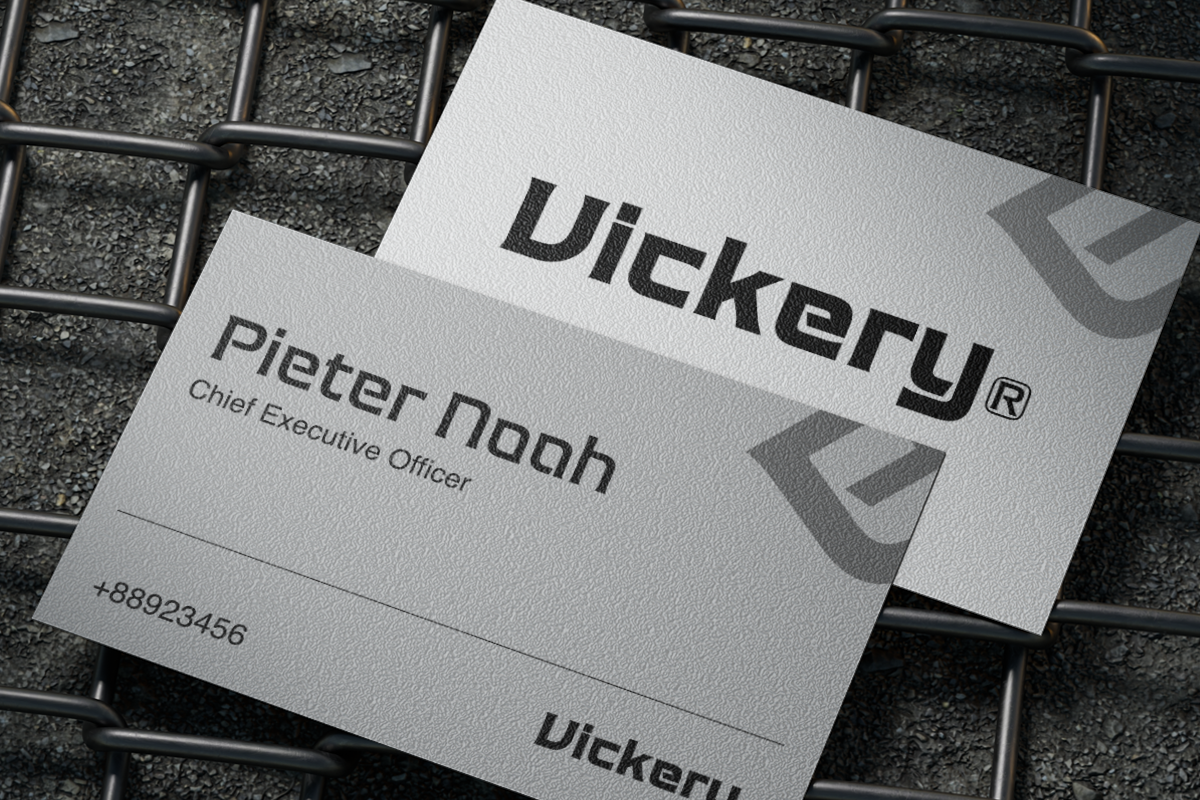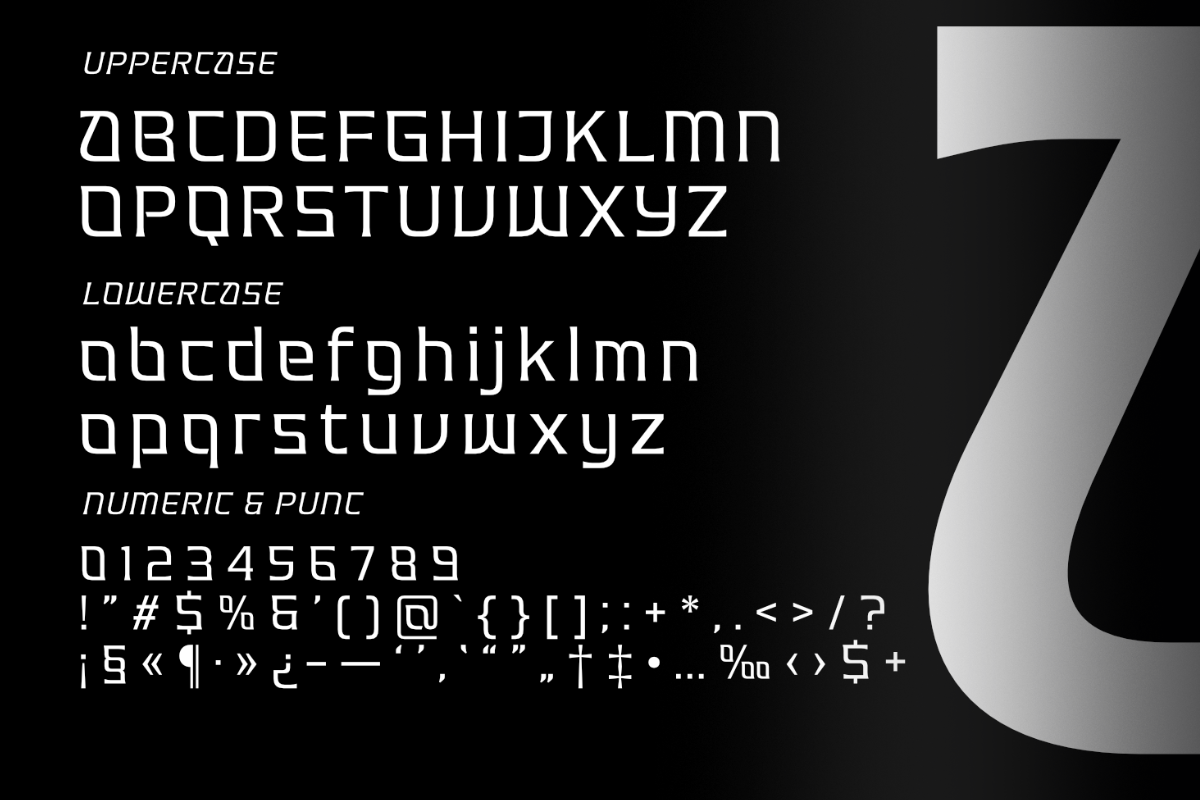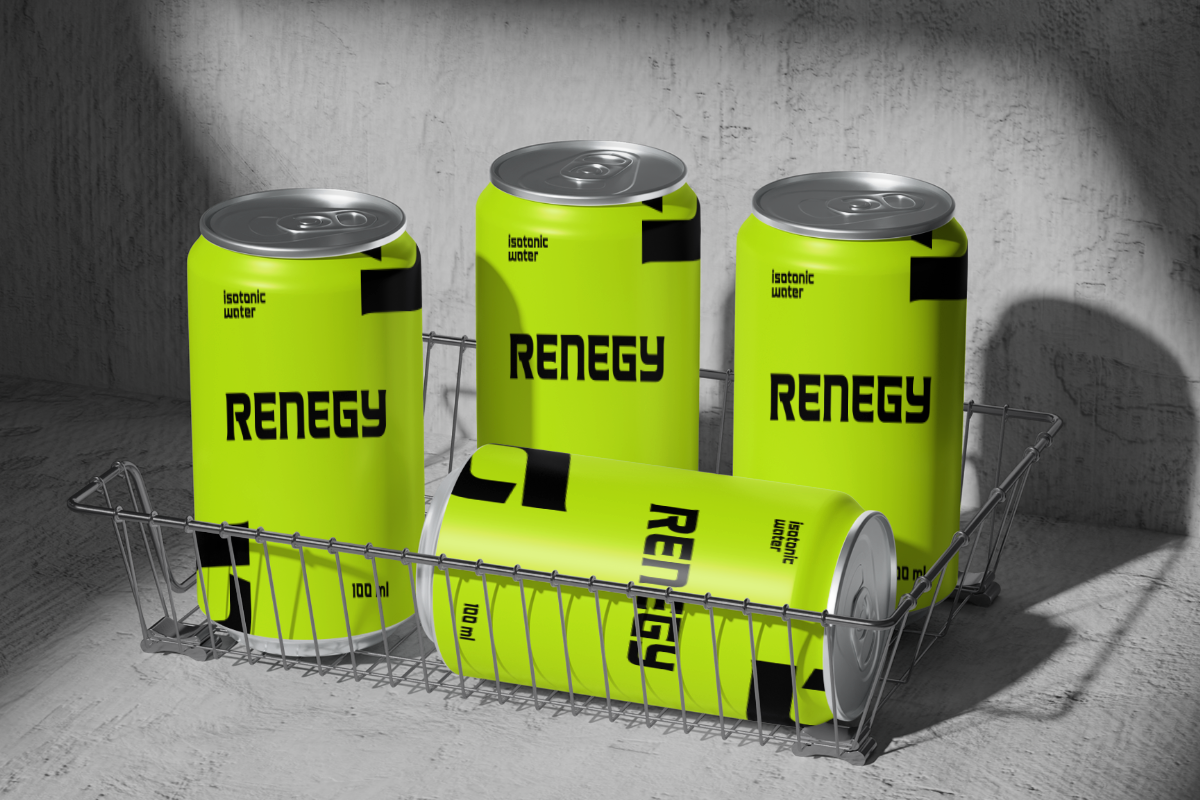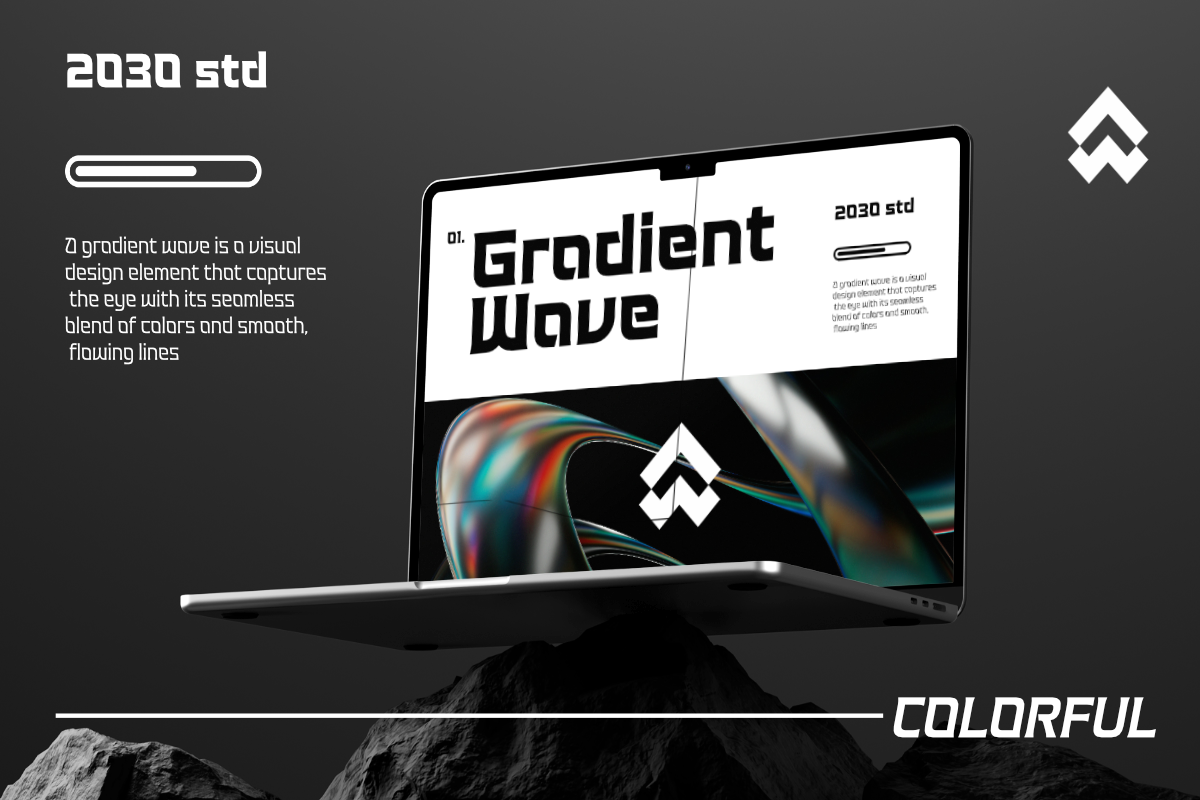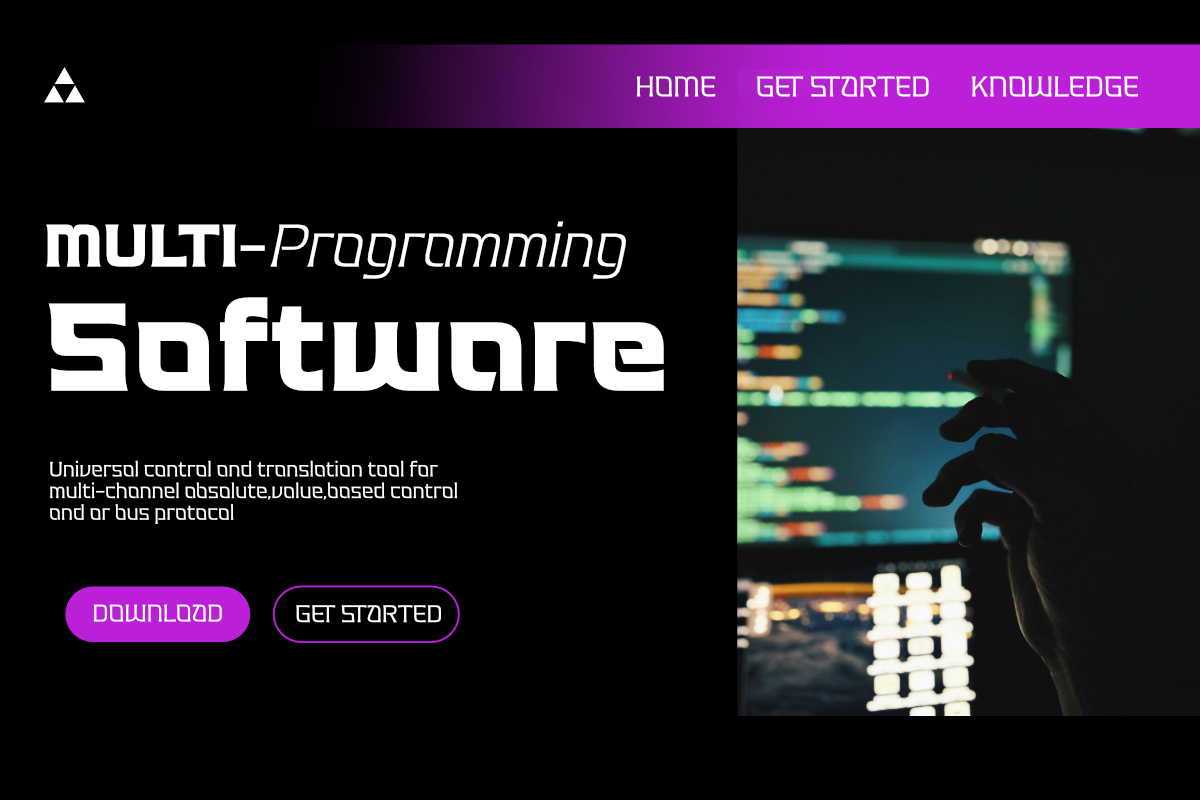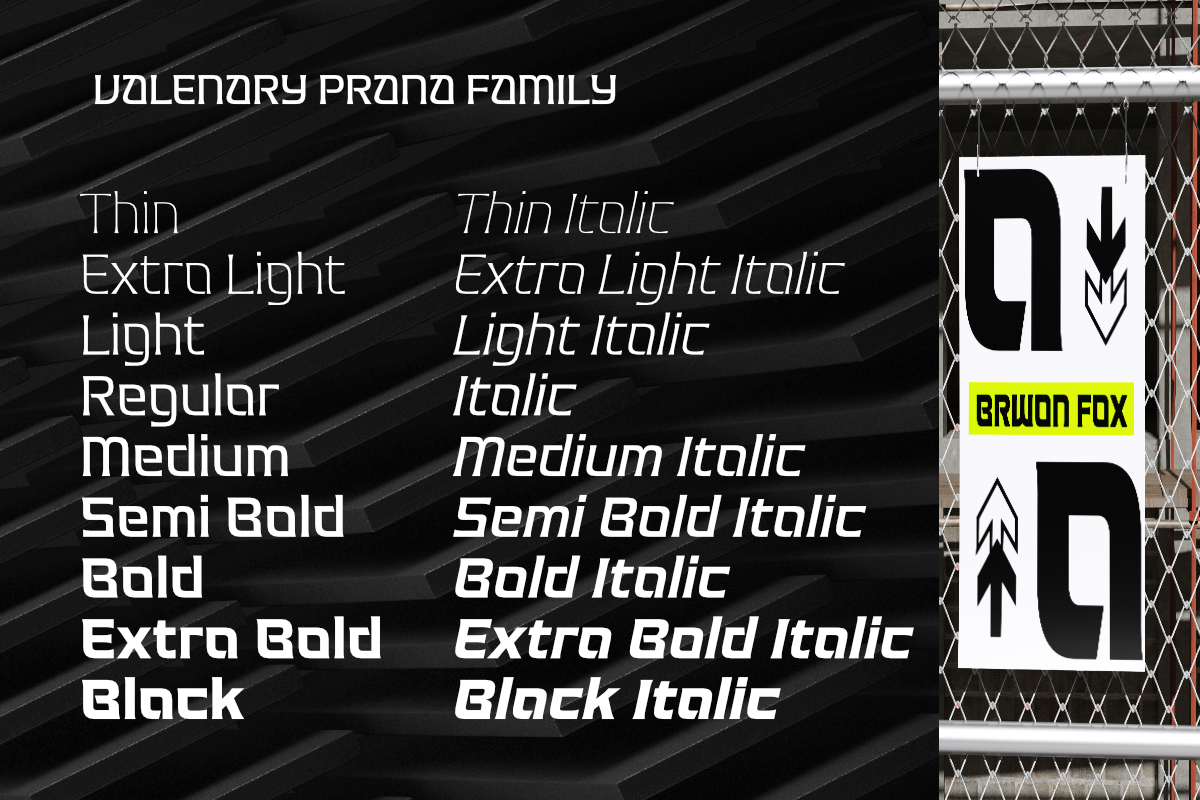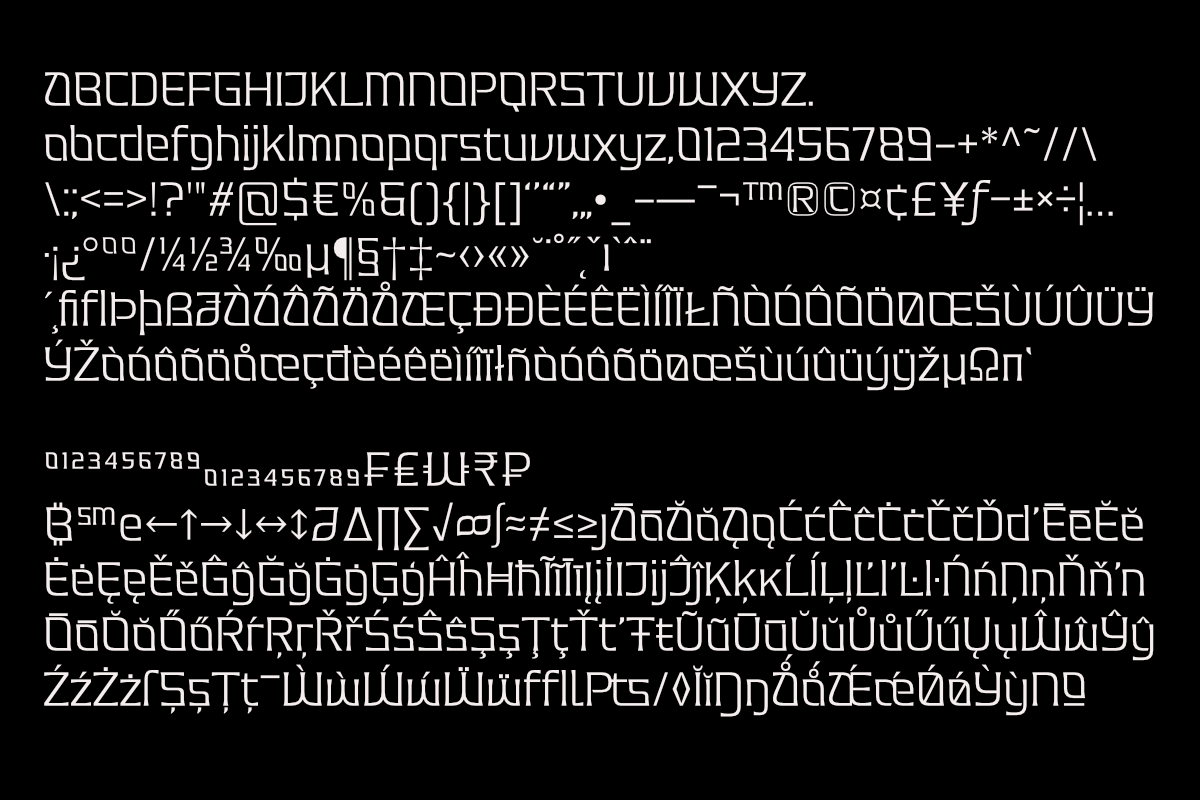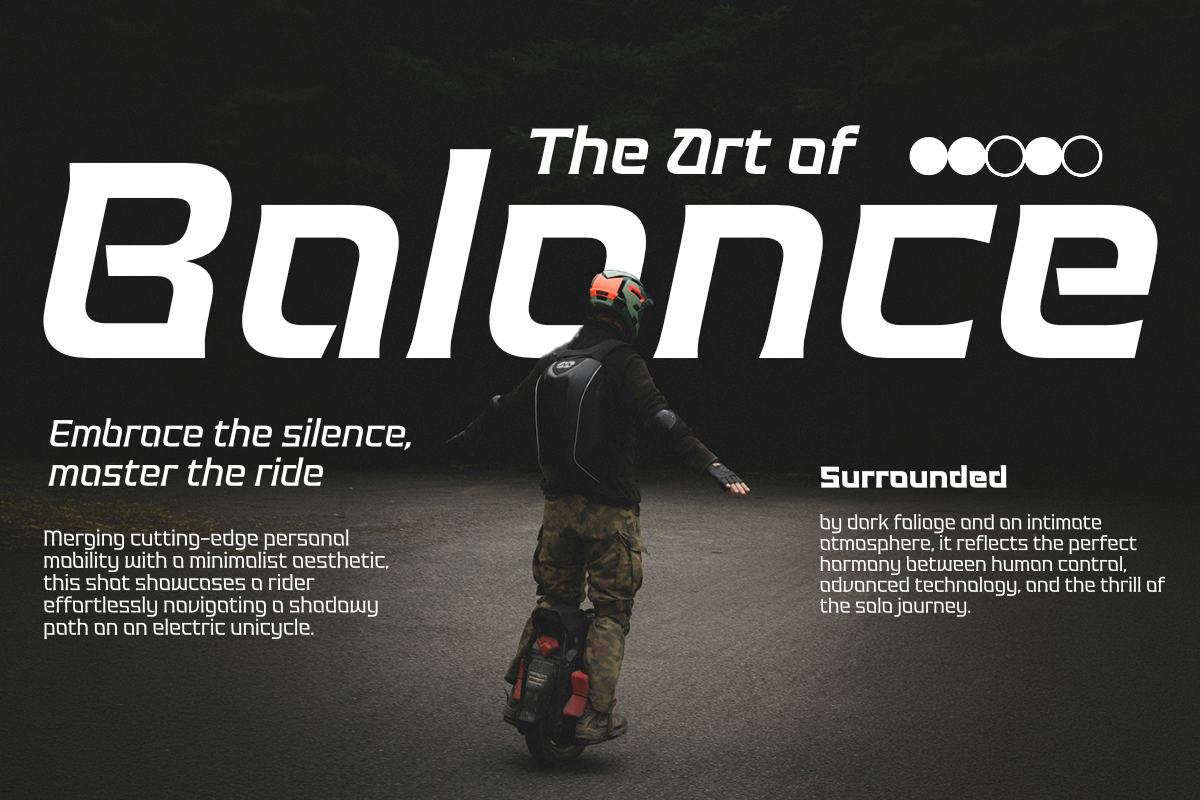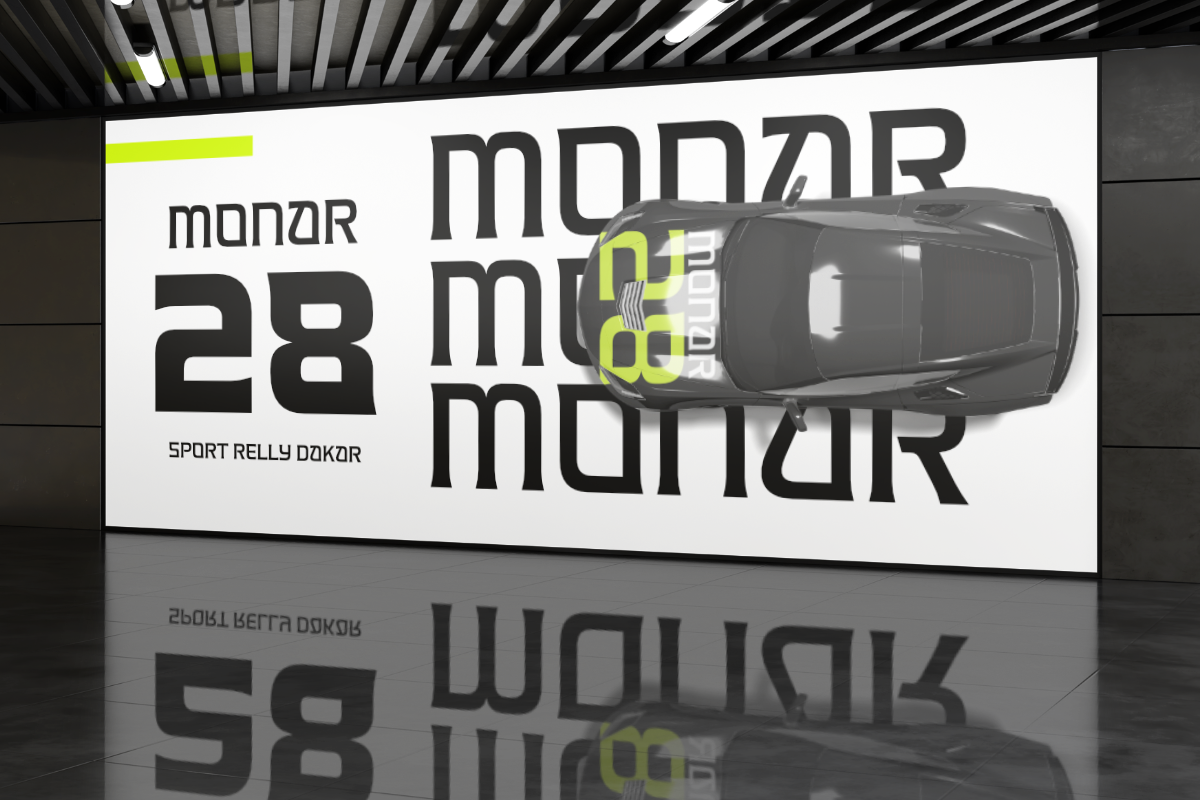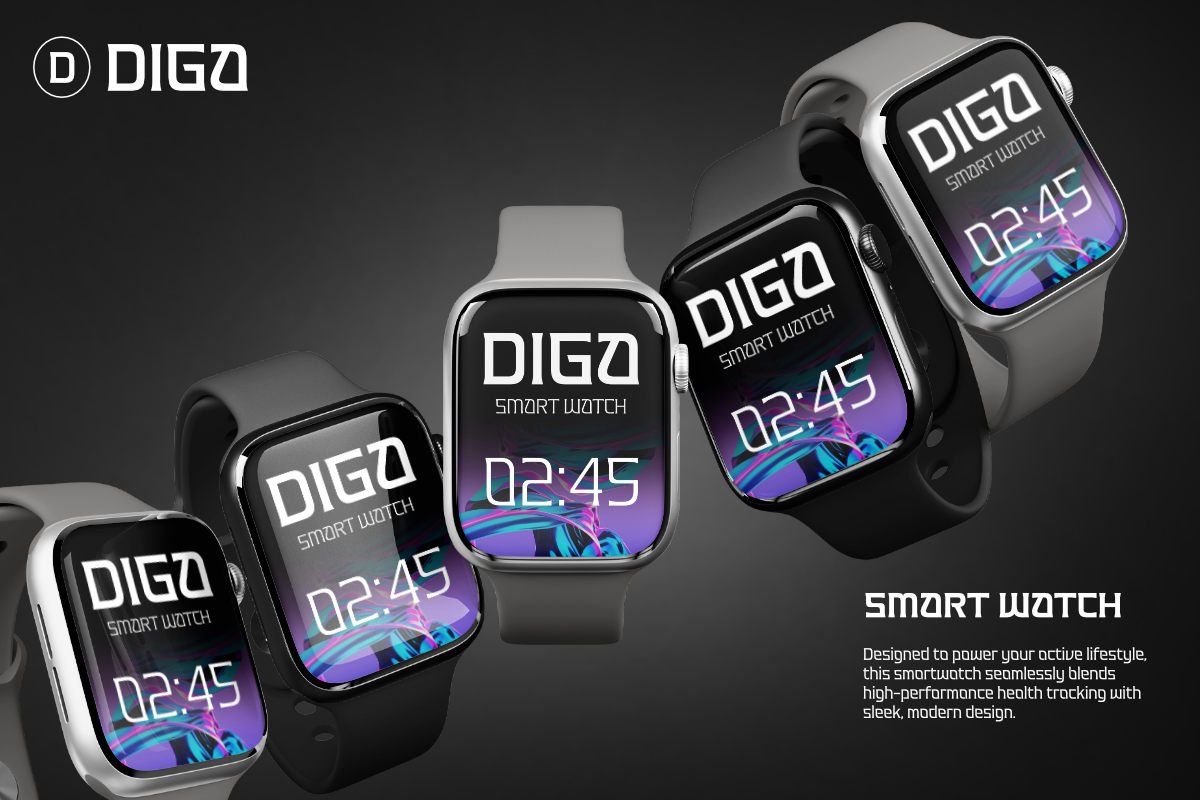
Valenary Prana
Valenary Prana is an innovative font family that redefines modern aesthetics through a seamless blend of sharp futuristic style and powerful sporty dynamics. Designed for high-velocity projects, this extensive collection features an impressive 18 versatile styles—ranging from a precise Thin to a massive Black, complete with matching dynamically slanted Italic options for every weight.
With its bold yet fluid geometric letterforms, Valenary Prana is ideal for high-impact design applications such as tech startup logos, e-sports branding, cutting-edge user interfaces, and daring editorial headlines. This font delivers limitless creative flexibility to bring a clean, energetic, and future-forward visual to your next standout project.